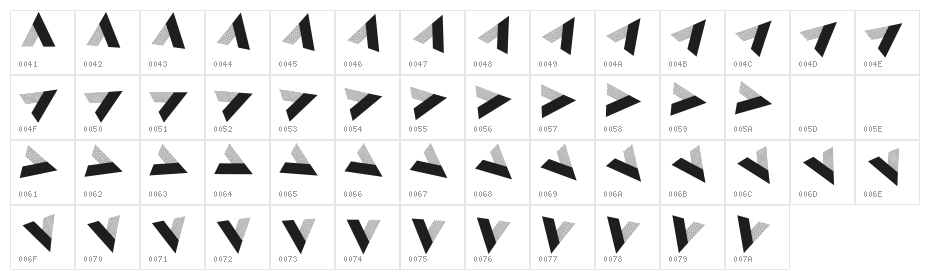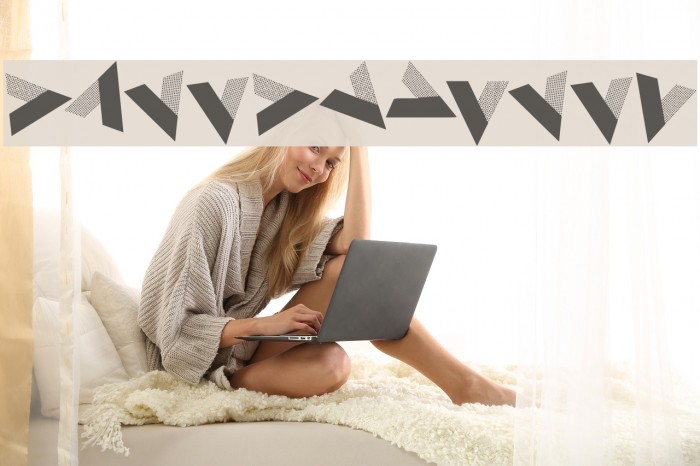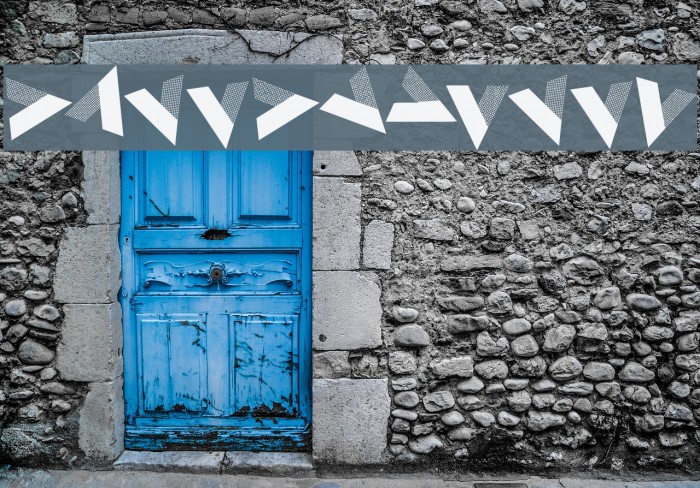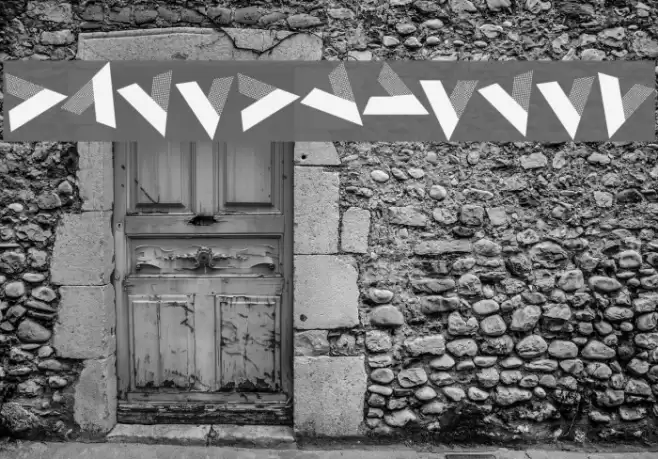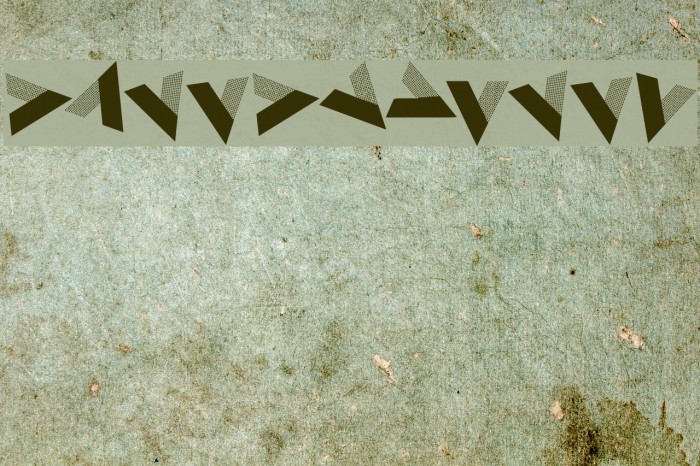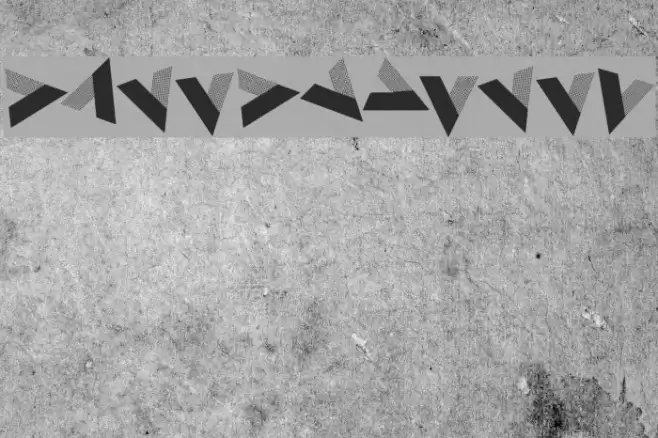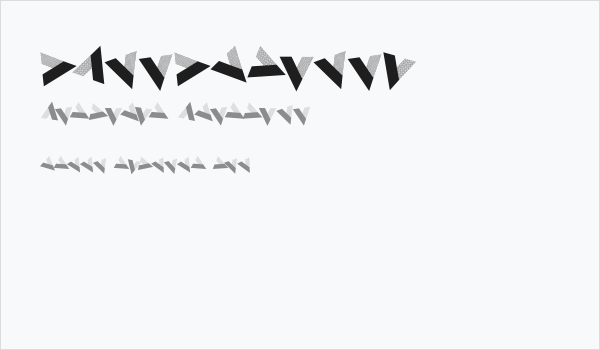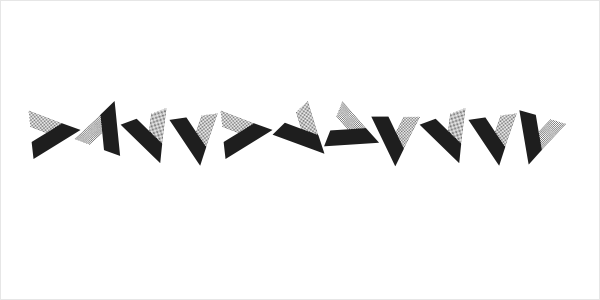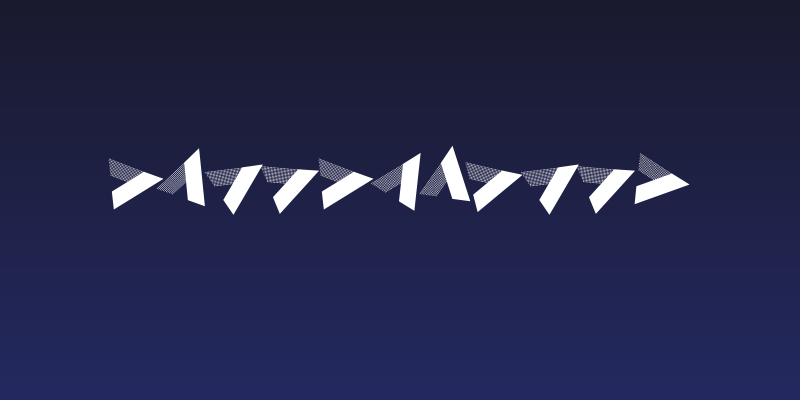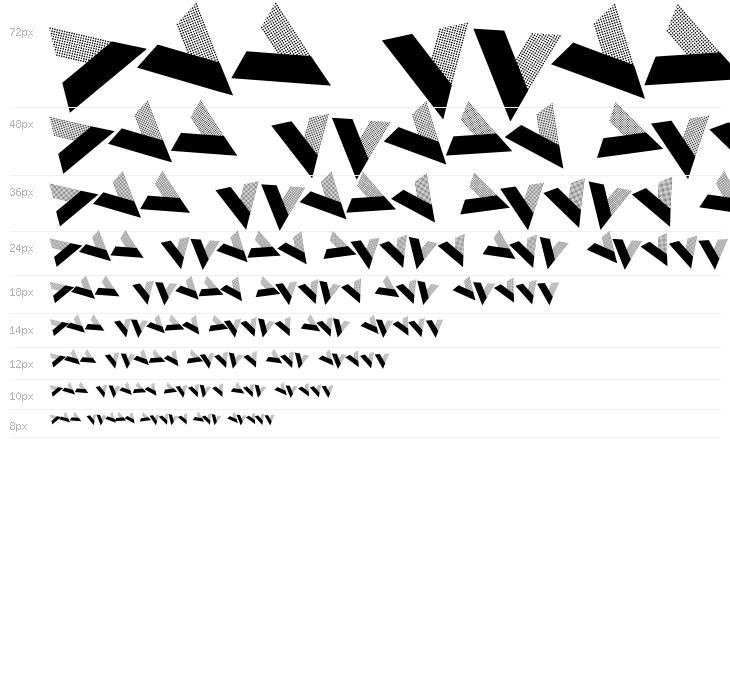
VForVictory Font
VForVictory Description
This design features a highly stylized and abstract representation of characters, where each letter is composed of angular, triangular shapes. The design is bold and geometric, with a strong emphasis on sharp angles and contrasting black and white patterns. The characters are not traditional letters but rather artistic interpretations, making them suitable for decorative purposes. The overall appearance is modern and avant-garde, with a unique visual impact that draws attention.
| Use Case | Logos, Art installations, Decorative elements |
| Proposed Projects | Ideal for modern art projects, abstract design elements, or unique branding materials where traditional readability is not required. |